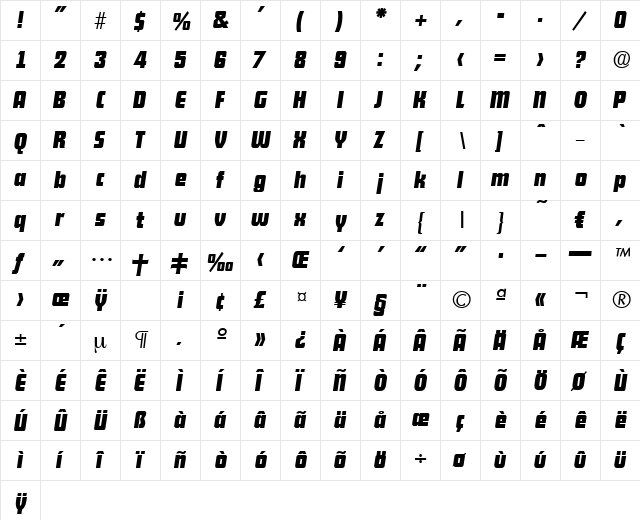
Dekodisplay-Italic Regular
Design Context for Dekodisplay-Italic Typeface
Dekodisplay-Italic brings ornamental detail and strong personality to headlines and identities, where visual impact matters more than quiet functionality. The slanted form adds forward momentum and visual energy.
Font Pairing: Pair with a clean neutral sans-serif for body copy to let Dekodisplay-Italic's character lead without overwhelming the composition.
Pro Tip: Use Dekodisplay-Italic exclusively at display sizes — it was designed to be seen, not read at length. Let a neutral companion handle body copy.